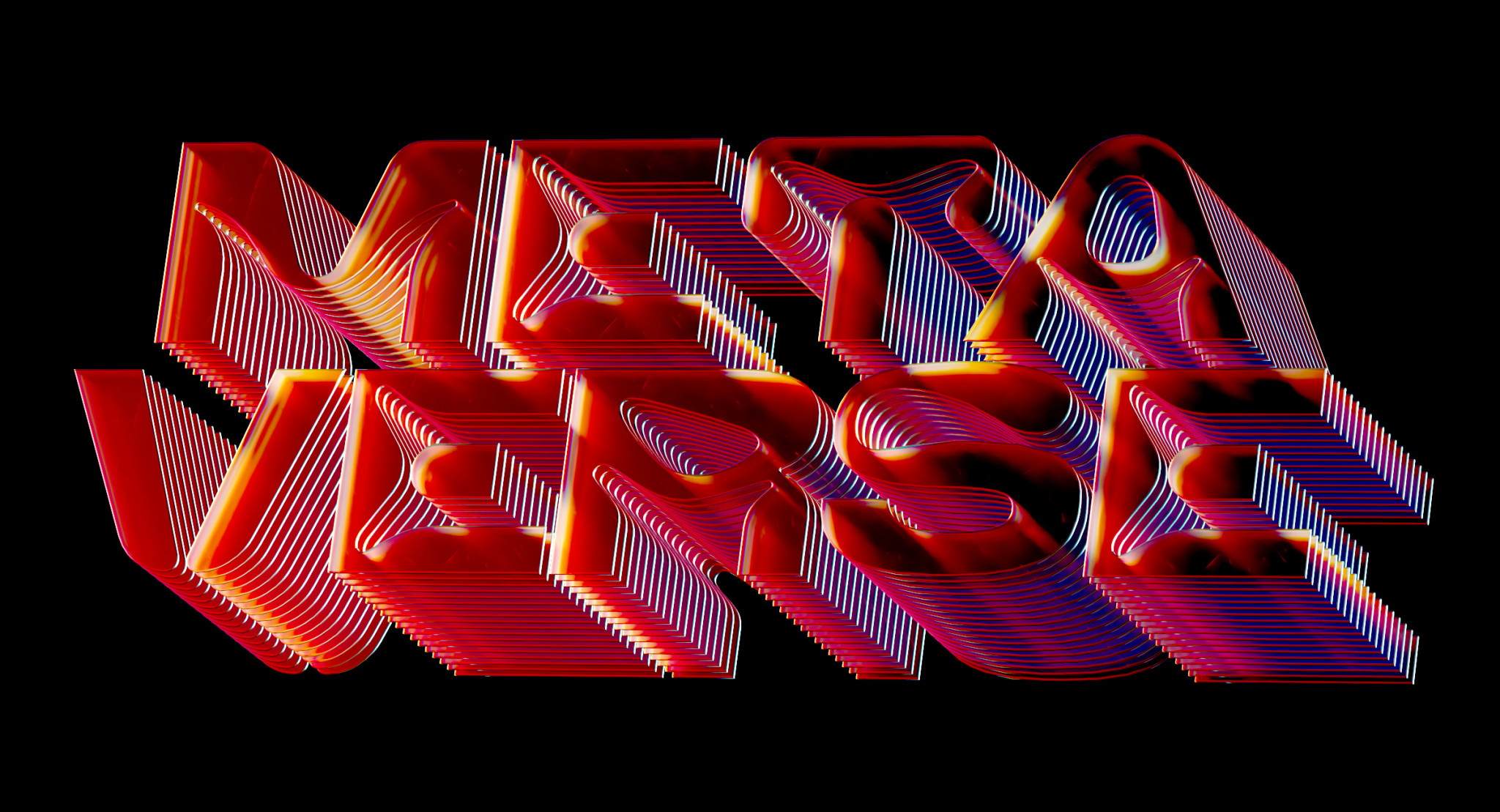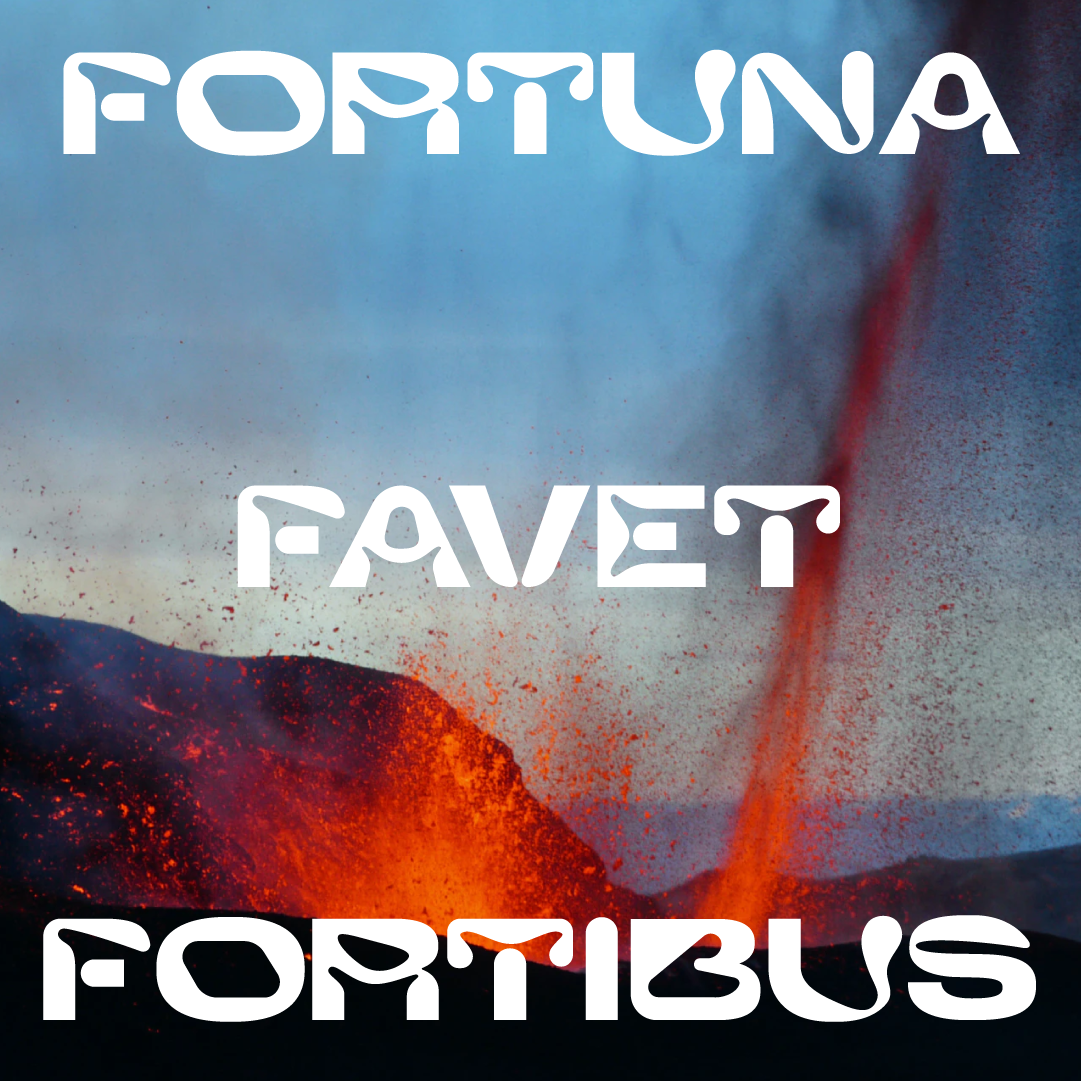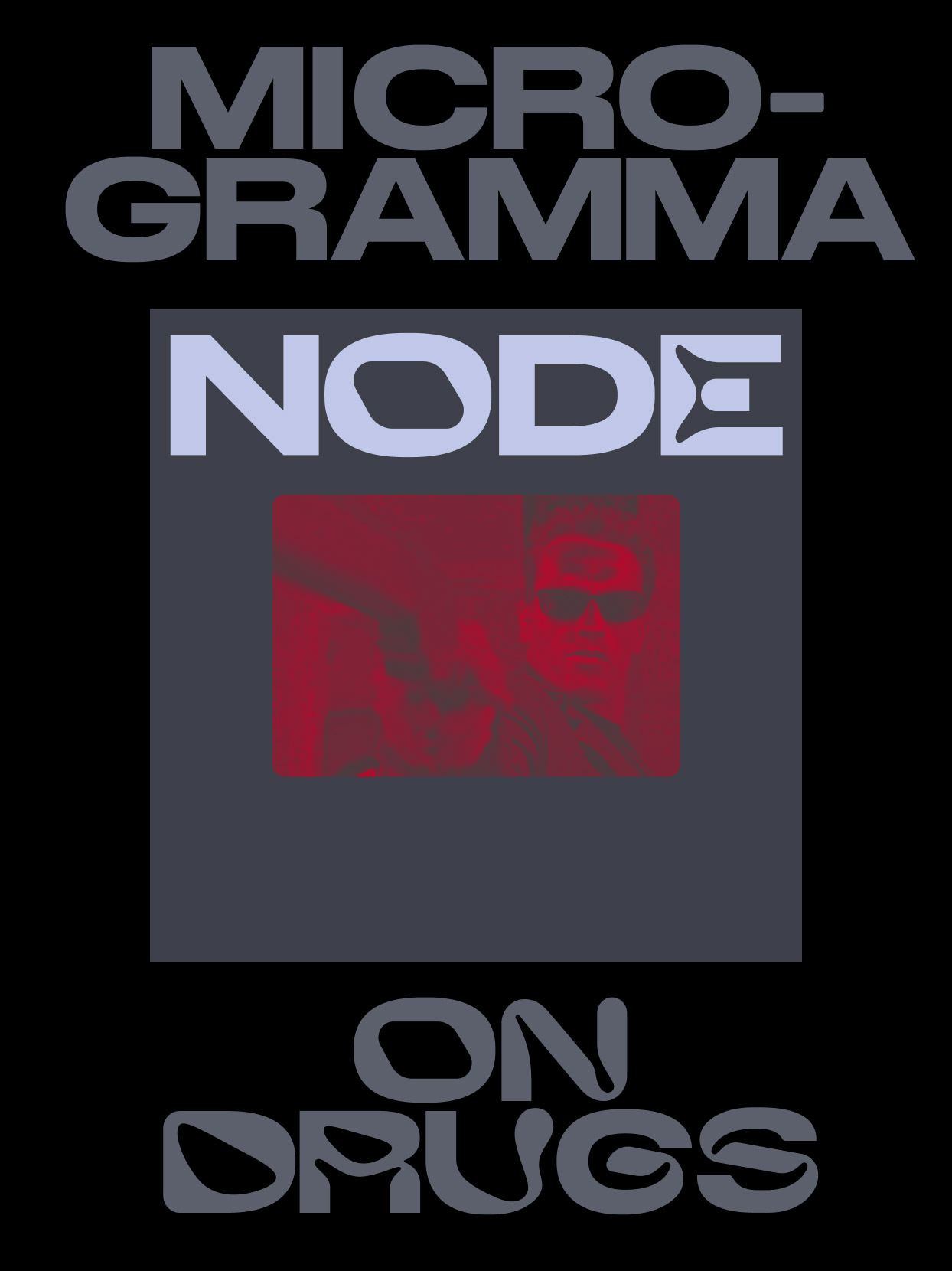
nOdE
Node embraces new forms for type design as it evolves to meet the diverse requirements of the metaverse. Conceptualized as Microgramma on steroids, what began as an analogue medium, slowly embraced and optimised in the digital space, is now enhanced by its digital environment. Node uses its new form to create alternative methods for distributing and utilising type.